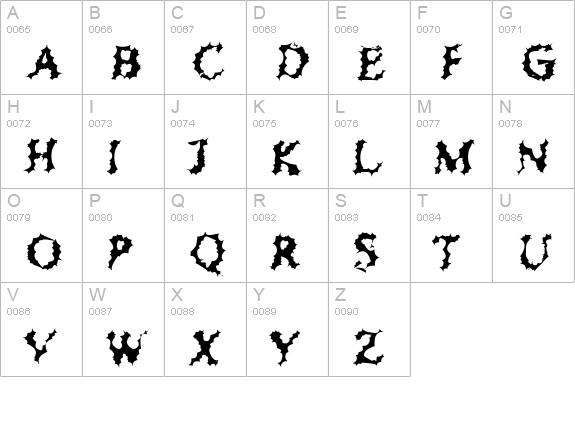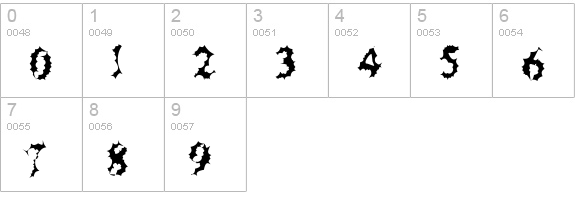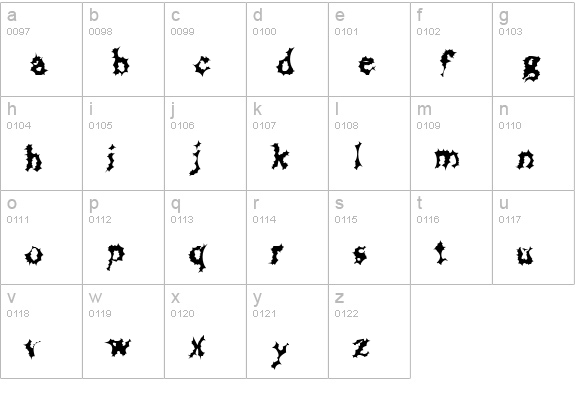
Chewed Straw Font Details
Introducing Chewed Straw font, a whimsical and unique typeface that adds a touch of playful charm to any design project. This font is inspired by the imperfect beauty of chewed straw, with quirky shapes and uneven lines that give it a handcrafted feel. Chewed Straw font is perfect for adding a fun and casual vibe to your designs, whether you're working on branding, packaging, invitations, or any other creative project. Its quirky and unconventional style will make your text stand out and grab attention. And the best part? Chewed Straw font is available for free download at FontsMarket.com! You can easily access this eye-catching font and start using it in your projects right away. Don't miss out on the opportunity to add a touch of whimsy to your designs with Chewed Straw font. Download it now and let your creativity shine!